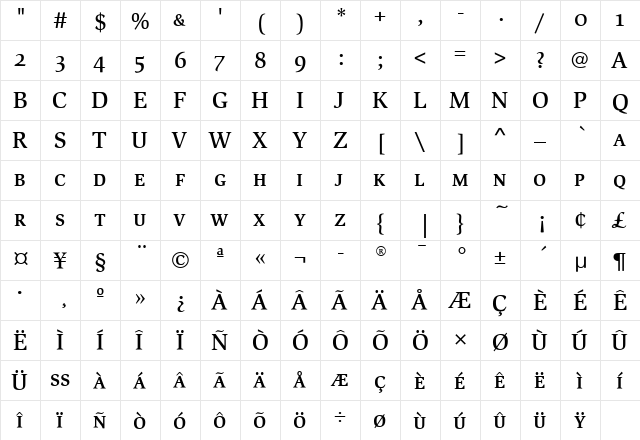
SlimbachMdSCITC Medium Font Preview
SlimbachMdSCITC Medium
SlimbachMdSCITC Medium Font Details
Design Context for SlimbachMdSCITC Typeface
SlimbachMdSCITC offers clean, dependable letterforms without strong stylistic allegiance, making it a practical choice for designers who need flexibility.
Pro Tip: Use SlimbachMdSCITC in both headline and body roles to test its range before committing to a single application.